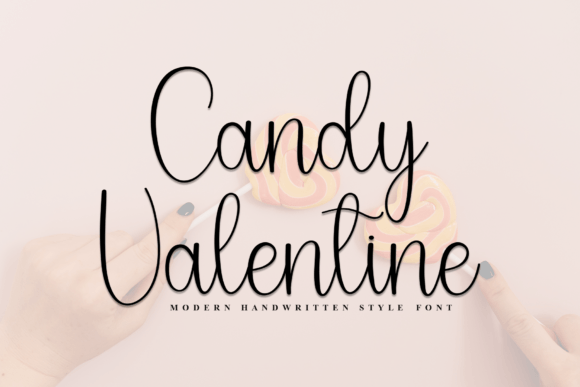
The Perfect Blend of Luxury and Casual: Unlocking the Magic of the Candy Valentine Font
Have you ever been brainstorming a new design concept, only to be stuck on finding the perfect font to bring your vision to life? You browse through numerous options, but nothing seems to capture the essence of your idea. It’s moments like these that make us appreciate the beauty of a well-designed font.
Enter the Candy Valentine Font, a stunning handwritten font that exudes a relaxed and sporty feel. Perfect for branding, logos, wedding supplies, and more, this font is an excellent choice for designers seeking to add a touch of luxury and elegance to their designs while still maintaining a casual vibe. With its marker-drawn aesthetic, the Candy Valentine Font is an invaluable asset for any creative looking to elevate their work.
Candy Valentine Font Key Features
- Font Size: The font comes in a single weight, making it ideal for designs that require a consistent look and feel.
- Resolution: The font is designed for high-resolution displays and can be used for both print and digital applications.
- Unique Characteristics: The Candy Valentine Font features a unique, whimsical design with a mix of cursive and script elements, making it perfect for adding a touch of elegance and sophistication to designs.
- Font Style: The font is a script font, ideal for use in titles, headings, and other design elements where a more decorative font is desired.
- Character Set: The font includes a wide range of characters, including uppercase and lowercase letters, numbers, and punctuation marks, making it a versatile option for designers.
Candy Valentine Font Review
I recently had the chance to work with the Candy Valentine Font, and I have to say, it’s a sweet addition to any design project. ✨ The font’s playful, cursive script makes it perfect for Valentine’s Day-themed designs, wedding invitations, and other romantic occasions. The subtle, swirly patterns and elegant curves give it a sophisticated touch that’s hard to resist.
- Playful and cursive script makes it perfect for romantic occasions.
- Subtle, swirly patterns and elegant curves give it a sophisticated touch.
- Highly customizable with various font sizes and colors.
However, there are a few limitations to keep in mind: ⚠️ The font may be too ornate for some designs, and the cursive script can be a bit tricky to read at smaller font sizes. Additionally, the font doesn’t come with a wide range of language support, which might be a problem for designers who work with non-English text.
Overall, I’d say the Candy Valentine Font is a great choice for designers who want to add a touch of whimsy and romance to their projects. While it may have some limitations, its unique style and high customization options make it a valuable addition to any design toolkit.
Tips: Use the Candy Valentine Font for creating eye-catching titles and headings. Experiment with different font sizes and colors to achieve a unique look.
Tips: Use the Candy Valentine Font for creating custom graphics, logos, and illustrations. Experiment with layer blending modes and effects to enhance the font’s appearance.
Tips: Use the Candy Valentine Font for creating engaging presentations and documents. Experiment with different font sizes and colors to add visual interest.
The Candy Valentine Font is perfect for:
- Creating Valentine’s Day-themed designs and graphics.
- Adding a touch of whimsy and playfulness to designs.
- Designing custom invitations, cards, and gift tags.
Remember to experiment with different font sizes, colors, and effects to get the most out of the Candy Valentine Font.
Great Vibes Font is a modern script font that is perfect for creating elegant and romantic designs. It’s ideal for wedding invitations, greeting cards, and other special occasions where a touch of sophistication is required.
Compared to Candy Valentine Font, Great Vibes Font has a more refined and polished look, making it suitable for high-end designs. While Candy Valentine Font has a playful and whimsical feel, Great Vibes Font exudes a sense of luxury and sophistication.
What is the recommended font size for optimal readability with the Candy Valentine Font?
The recommended font size for optimal readability with the Candy Valentine Font is between 12pt and 18pt. However, this can vary depending on the specific design application and the intended use of the font. It’s always a good idea to test different font sizes and styles to ensure optimal readability and visual appeal.